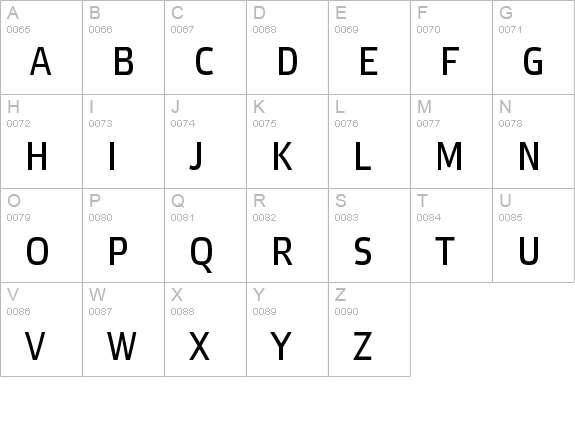
Etelka Narrow Text Pro Font Details
Etelka Narrow Text Pro is a distinctive, condensed-width variant in the Etelka typeface family \xE2\x80\x94 well suited to design and typography projects.
Etelka Narrow Text Pro is a beautifully crafted font designed for elegant and sophisticated typography projects. Its slender, elongated letterforms exude a sense of modernity and professionalism, making it an ideal choice for editorial design, branding, and any other creative endeavors that require a touch of refinement. This versatile typeface offers a perfect balance between readability and style, making it suitable for a wide range of applications, from print to digital media. With its clean lines and subtle details, Etelka Narrow Text Pro brings a sense of sophistication to any design. And the best part? Etelka Narrow Text Pro is available for free download at FontsMarket.com, allowing you to enhance your projects with this premium font without breaking the bank. Don't miss out on the opportunity to elevate your design work with Etelka Narrow Text Pro. Download it today and unleash your creativity!